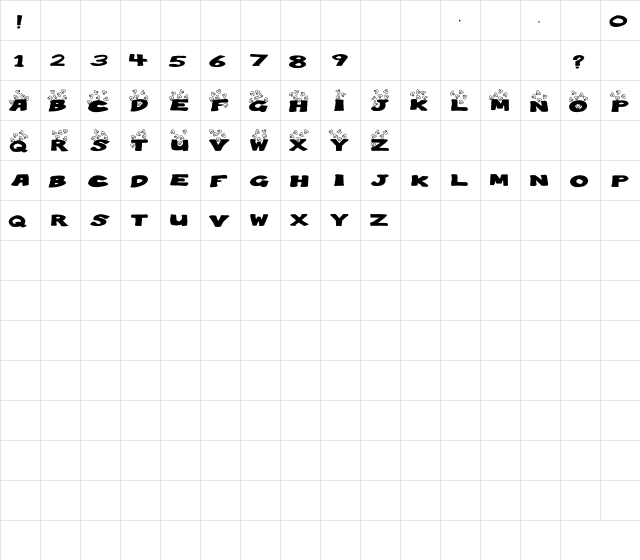
Popping Popcorn Regular Font Preview
Popping Popcorn Regular
Popping Popcorn Regular Font Details
| Foundry | High-Logic |
| Designer | High-Logic - Erwin Denissen 1999 |
Design Context for Popping Popcorn Typeface
Popping Popcorn is a composed and adaptable typeface that performs quietly and consistently across a wide range of design contexts.